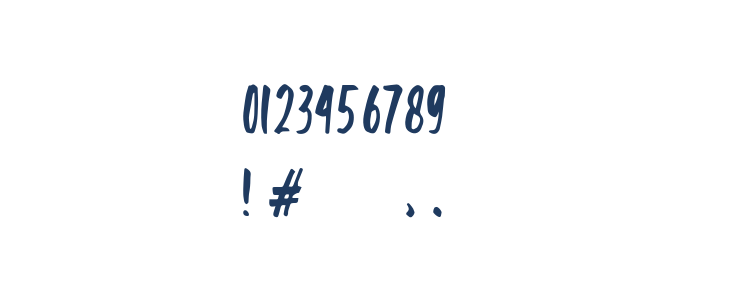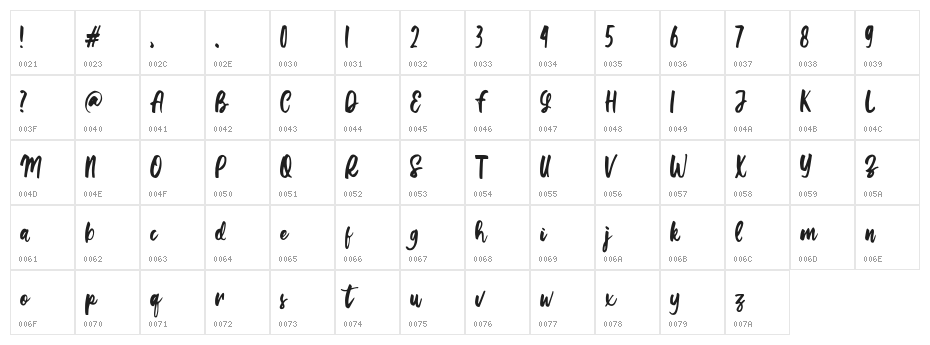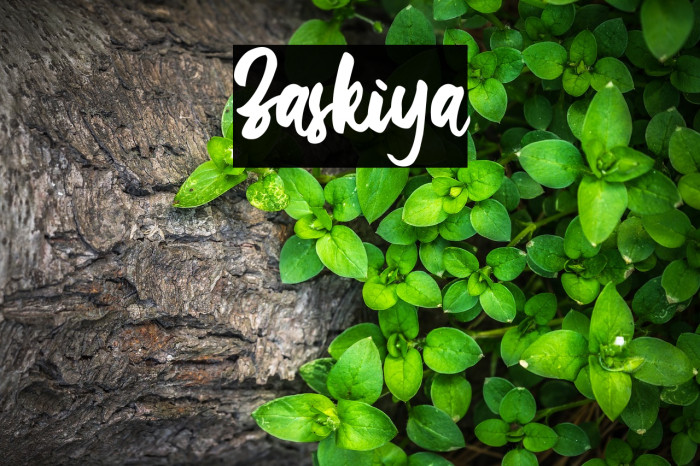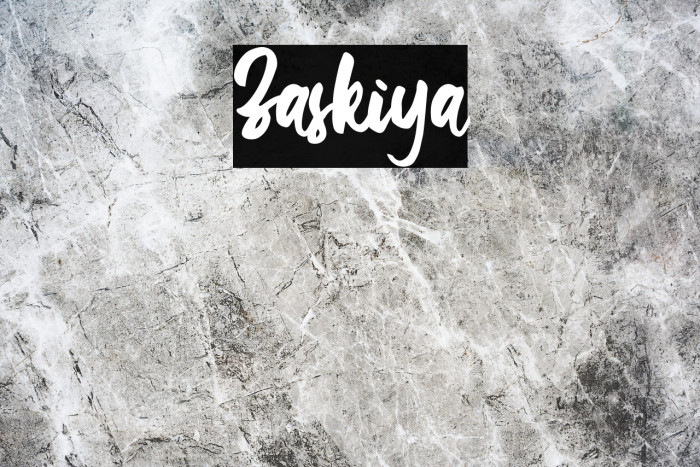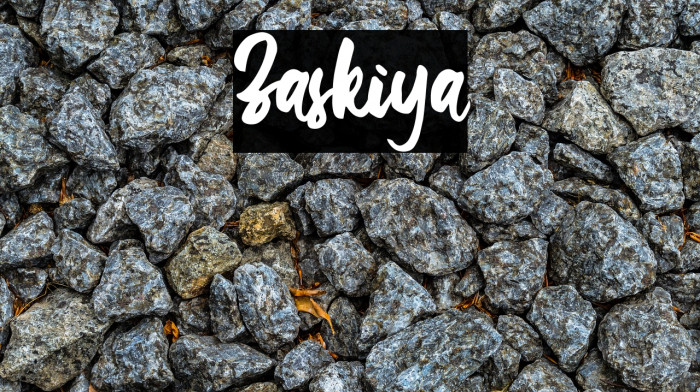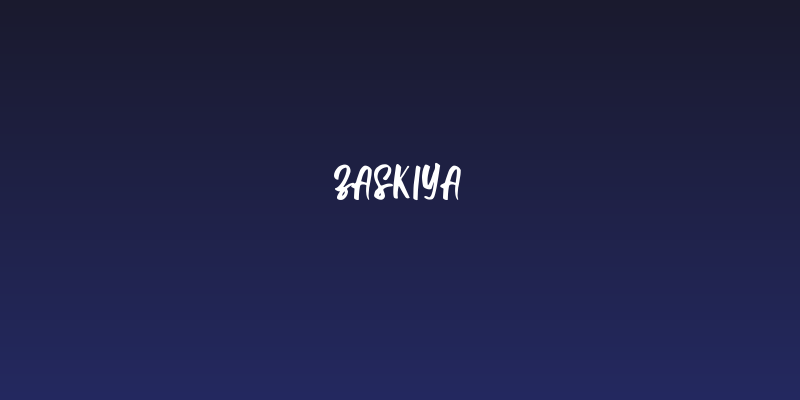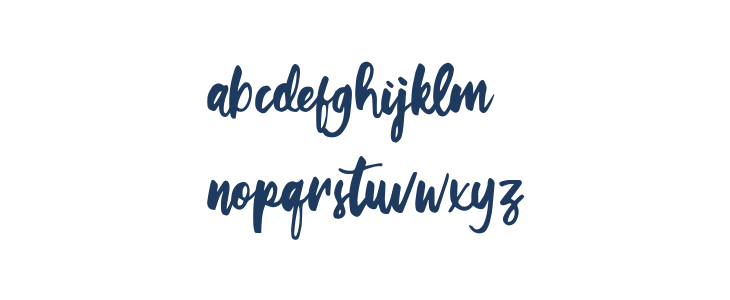
Zaskiya Font
Zaskiya Description
This font features a bold and expressive handwritten style, characterized by its fluid and dynamic strokes. The uppercase letters are slightly taller and more prominent, while the lowercase letters maintain a consistent flow, enhancing readability. The numbers are well-integrated with the overall style, maintaining the same boldness and fluidity. Special characters are designed to complement the alphabet, adding versatility to the font. The overall appearance is casual yet impactful, making it suitable for various creative applications.